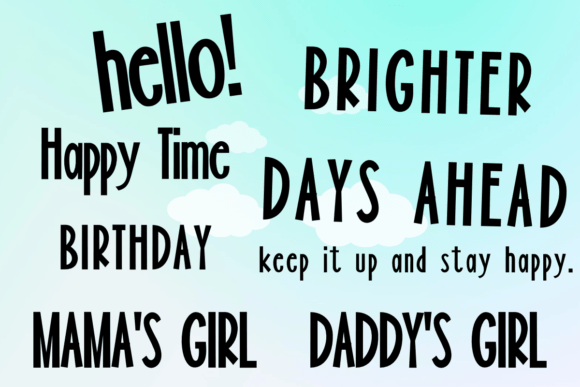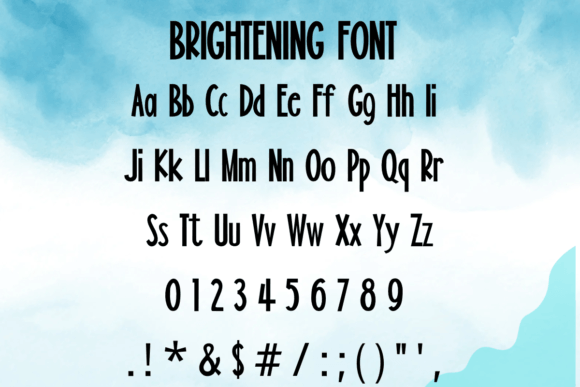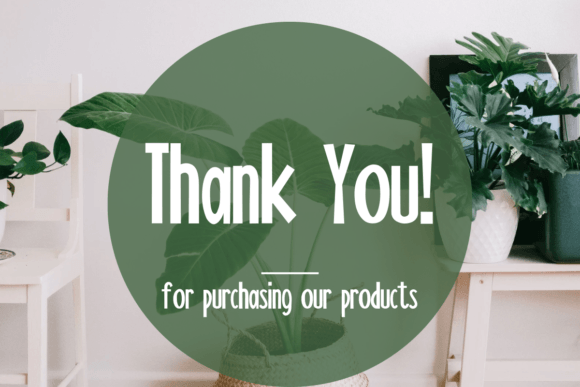
Introducing Brightening Font: Add a Sweet and Friendly Touch to Your Designs
Are you looking for a font that can add a playful and fun touch to your designs? Look no further than Brightening Font! This sweet and friendly handwritten display font is perfect for crafts, digital design, presentations, and a wide range of creative projects. Whether you’re a designer, teacher, student, or crafter, Brightening Font is an ideal choice for anyone who wants to add a personal and whimsical touch to their work.
What Makes Brightening Font So Special?
Brightening Font is a cute and fun handwritten display font that is designed to bring a smile to your face. Its sweet and friendly style makes it perfect for a wide range of projects, from wedding invitations and cards to school projects and digital designs. The font’s playful and carefree vibe is sure to capture the attention of your audience and leave a lasting impression.
Ideal for Crafts and Digital Design
Brightening Font is a versatile font that can be used for a variety of crafts and digital design projects. Whether you’re creating handmade cards, scrapbooking pages, or digital graphics, this font is sure to add a fun and playful touch. Its clear and readable style makes it perfect for use in titles, headings, and body text, while its whimsical charm is sure to make your designs stand out from the crowd.
Perfect for School Projects
Brightening Font is also an excellent choice for school projects, whether you’re a teacher or a student. Its fun and engaging style makes it perfect for use in classroom decorations, worksheets, and presentations. The font’s playful vibe is sure to capture the attention of your students and make learning more enjoyable. Additionally, Brightening Font can be used to create eye-catching posters, charts, and graphs that will make your school projects stand out.
Use Brightening Font for Wedding Invitations and Cards
Brightening Font is a popular choice for wedding invitations, cards, and other special occasion designs. Its sweet and romantic style makes it perfect for use in wedding stationery, while its whimsical charm is sure to add a personal touch to your designs. Whether you’re a designer or a DIY bride, Brightening Font is an excellent choice for creating beautiful and memorable wedding invitations and cards.
Key Features of Brightening Font
- Cute and fun handwritten display font: Brightening Font is a sweet and friendly font that is designed to add a playful touch to your designs.
- Ideal for crafts and digital design: This font is perfect for use in a wide range of crafts and digital design projects, from handmade cards to digital graphics.
- Perfect for school projects: Brightening Font is an excellent choice for school projects, whether you’re a teacher or a student.
- Suitable for wedding invitations and cards: This font’s sweet and romantic style makes it perfect for use in wedding stationery and other special occasion designs.
- Easy to read and use: Brightening Font is a clear and readable font that is easy to use in a wide range of designs.
| Font Name | Brightening Font |
| Author | Digital Creative Art |
In conclusion, Brightening Font is a sweet and friendly handwritten display font that is perfect for adding a fun and playful touch to your designs. Its cute and whimsical style makes it ideal for use in crafts, digital design, school projects, and a wide range of creative projects. Whether you’re a designer, teacher, student, or crafter, Brightening Font is an excellent choice for anyone who wants to add a personal and engaging touch to their work. So why not give Brightening Font a try and see how it can brighten up your designs?